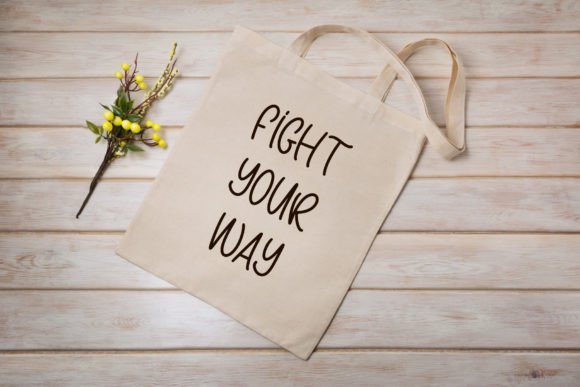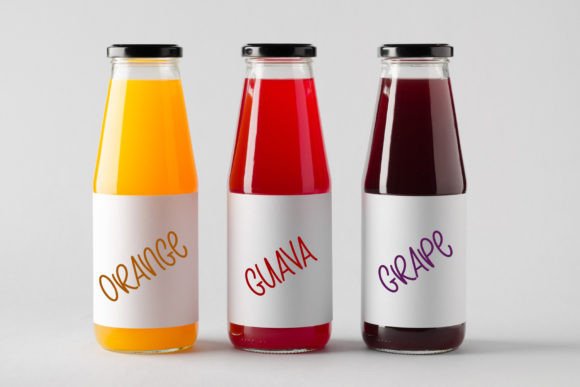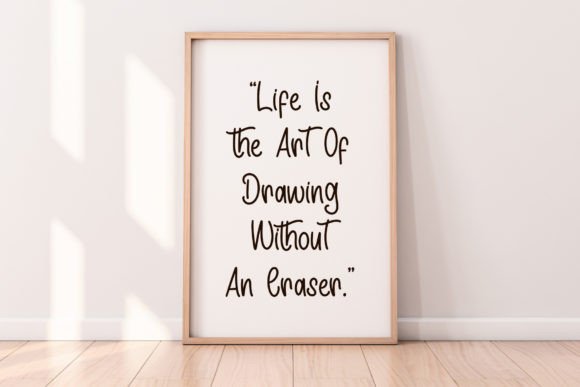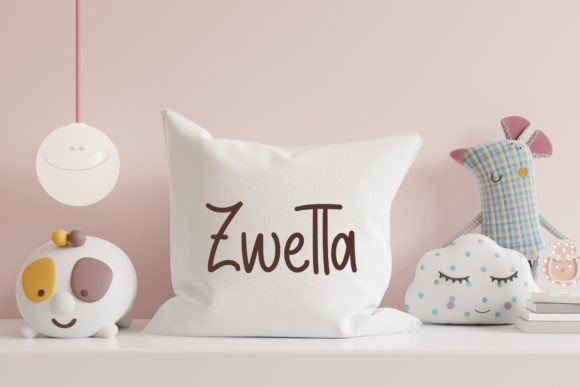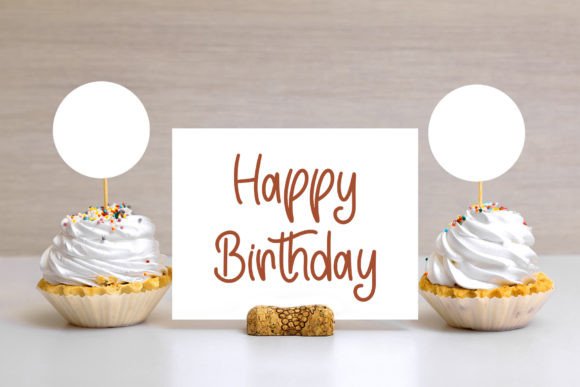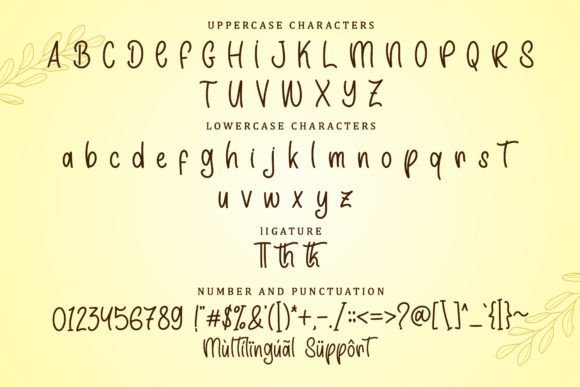
The Butter Summer Font: A Game-Changer for Your Designs
Ah, the elusive perfect font. You know, that one that makes your design project go from meh to mesmerizing. I’ve been there, done that, and got the t-shirt (which, coincidentally, was designed with a not-so-great font choice). But today, I’m excited to share with you a font that has genuinely elevated my design game: Butter Summer.
My First Impressions
I was working on a whimsical craft project for a client who wanted a playful, yet elegant vibe. As I scrolled through font after font, nothing seemed quite right – either too thin, too thick, or just plain boring. That’s when I stumbled upon Butter Summer, and let me tell you, it was love at first sight! This handwritten font is described as cute, casual, and neat, and I couldn’t agree more.
• ✨ Balanced and varied: The font strikes a perfect balance between not being too thin or too thick, making it versatile for various design projects.
• ✅ Easy to read: Despite its casual vibe, Butter Summer is surprisingly legible, even at smaller font sizes.
• 💕 Cute and playful: The handwritten style adds a touch of whimsy and friendliness to any design.
While Butter Summer is an amazing font, it’s not without its quirks. For instance:
• 🤔 Limited use in very formal projects: Given its casual nature, Butter Summer might not be the best fit for very formal or corporate designs.
• ⚠️ Some letters may require adjustment: In certain words or phrases, you might need to adjust letter spacing for optimal readability.
Butter Summer was created with the intention of bringing a sense of warmth and playfulness to design projects. The designer aimed to craft a font that felt both approachable and stylish, perfect for a wide range of creative endeavors. While I couldn’t find a detailed backstory on the font’s creation, it’s clear that the goal was to make a font that would make designers and their clients smile.
Q: Does Butter Summer support OpenType features?
A: Yes, Butter Summer supports various OpenType features, including stylistic alternates and glyphs, which can add more personality to your designs.
Q: Is Butter Summer a versatile font?
A: Absolutely! Butter Summer’s balanced and varied design makes it suitable for a wide range of projects, from craft and hobby projects to professional designs.